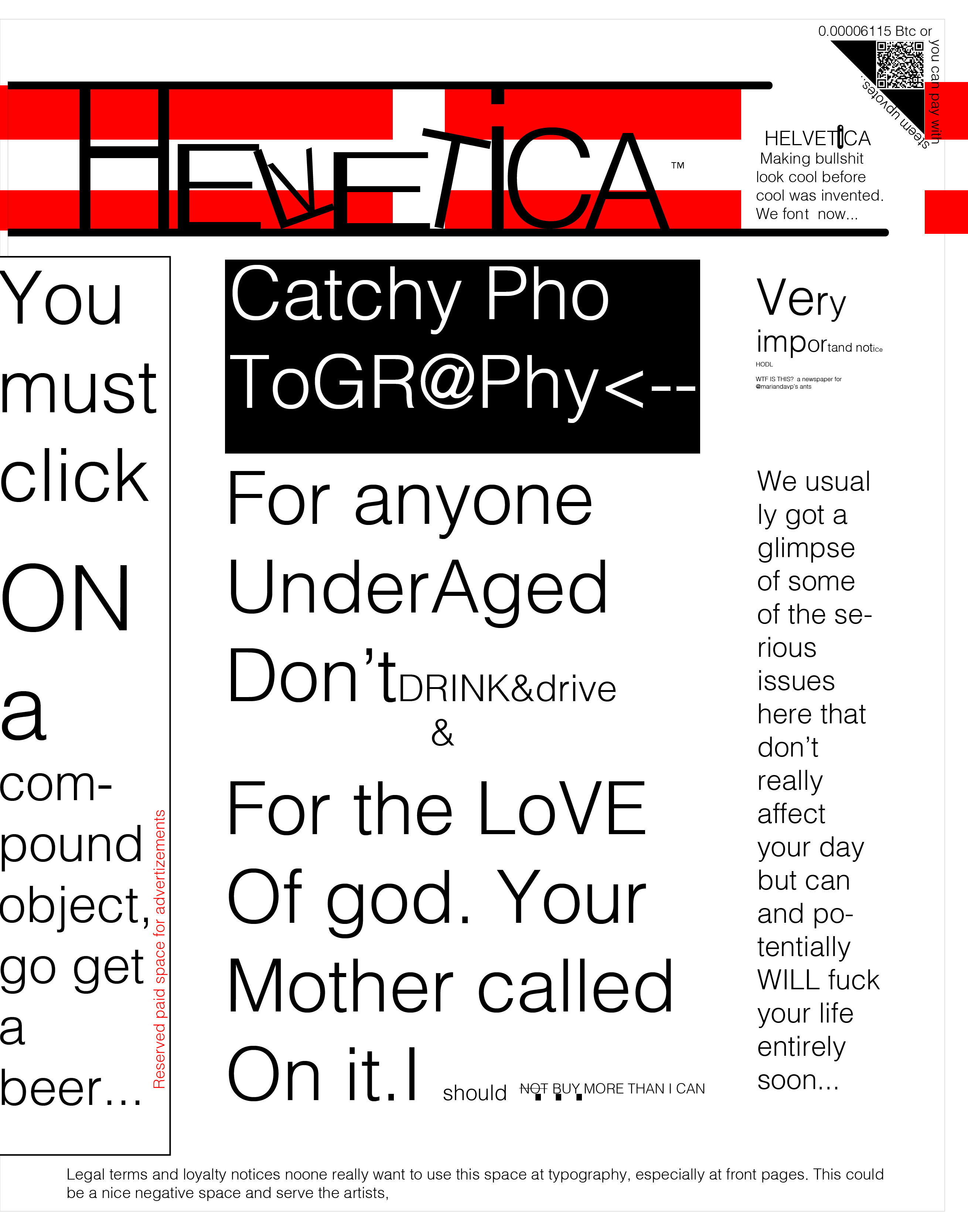
Helvetica
This series will explore the art of typography starting with what better than Helvetica. developed at 1957 by Swiss typeface designer Max Miedinger
Helvetica is a neo grotesque font That was named that way as a marketing plan for a wider audience at 1960. Probably among the most used and iconic fonts of 21st century.
I only find it proper to use it as the first part of my "Font Adventures" series, which I will make a front page layout and make silly typography art magazine, newspaper, comic or whatever feels fit for each. I hope you will enjoy it.
If you want to learn more about Helvetica please visit the wikipedia link following the sources provided, this is a funny series of silly use cases on several fonts.
The font used on this project is the:
Helvlight regular.
Hmmmm...
This line is used frequently in newspapers and magazines and on the covers of some books, and this for commercial purpose, and attract more followers
It is probably the one of the top widespread fonts used, for quite many years. Let's hope it will get me more followers too :)